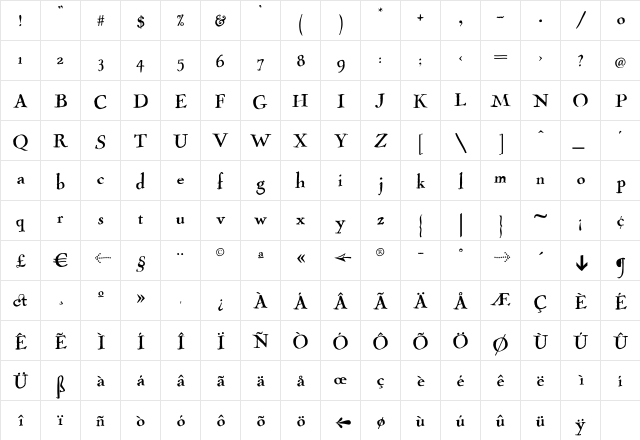
Tangoasis Regular
Design Context for Tangoasis Typeface
Tangoasis is a composed and adaptable typeface that performs quietly and consistently across a wide range of design contexts.